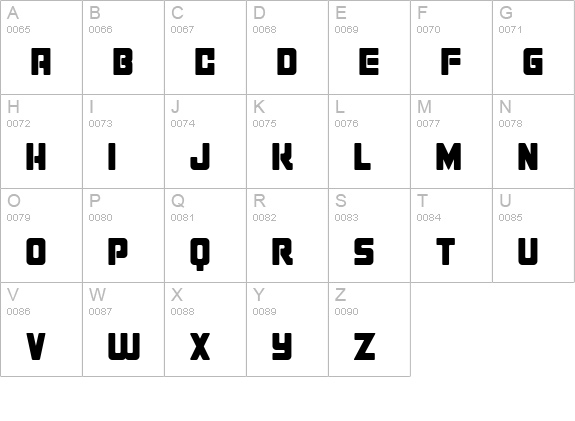
Hustle Font Details
Introducing Hustle Font, a sleek and modern typeface designed for those who hustle hard and strive for success. This versatile font exudes confidence and energy, making it perfect for a wide range of projects, from branding to social media graphics. With its clean lines and bold presence, Hustle Font commands attention and leaves a lasting impression. What's even better is that Hustle Font is available for free download at FontsMarket.com, making it accessible to designers and creatives of all levels. Whether you're working on a professional project or a personal passion project, Hustle Font has got you covered with its stylish and impactful design. Add a touch of sophistication and motivation to your designs with Hustle Font, and let your creativity shine with this dynamic typeface that embodies the spirit of determination and drive. Download it now and start creating with Hustle Font today!